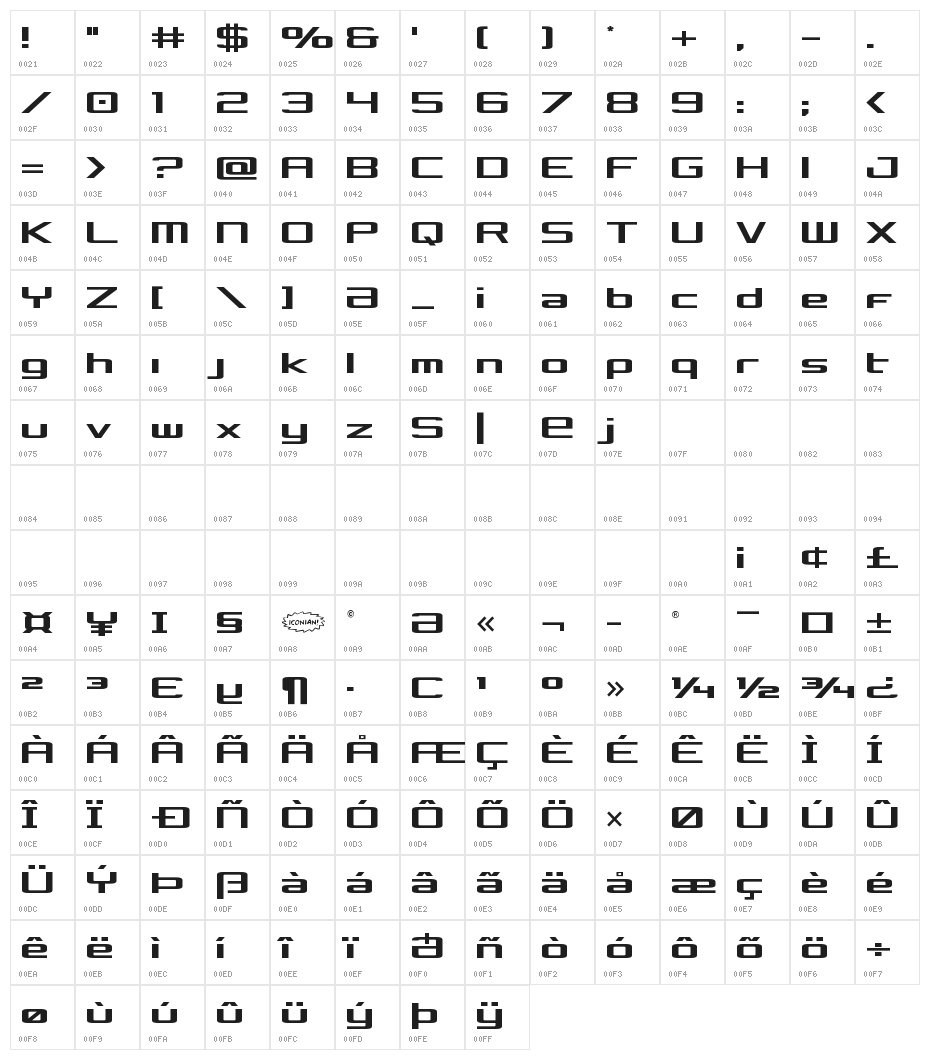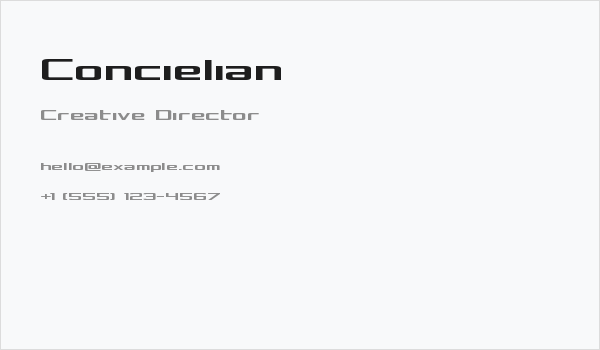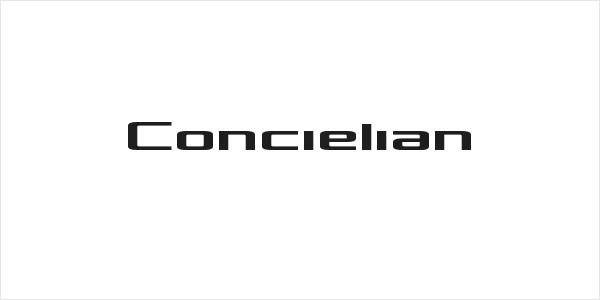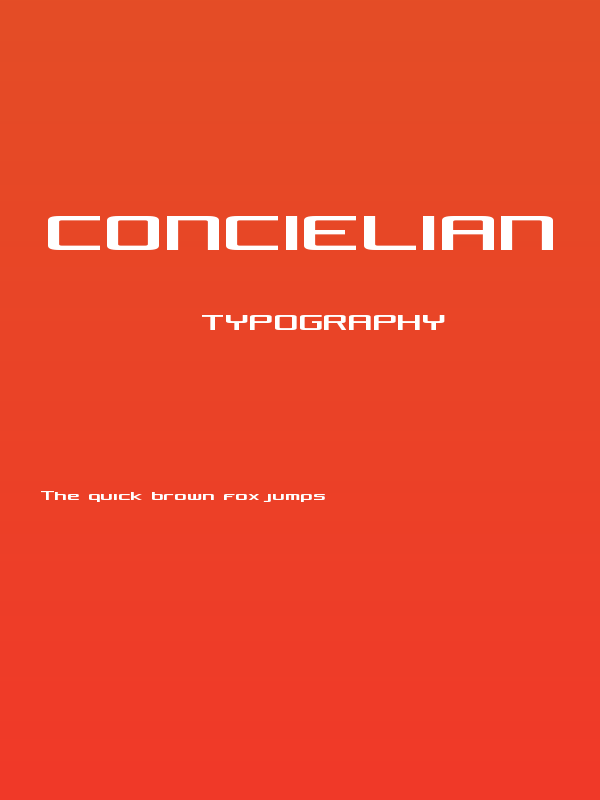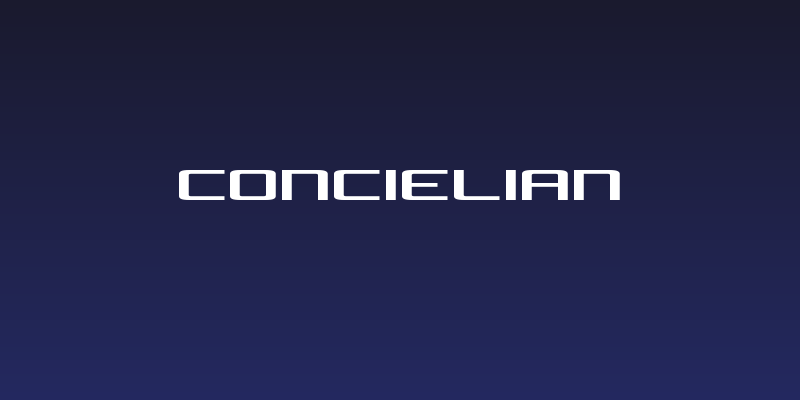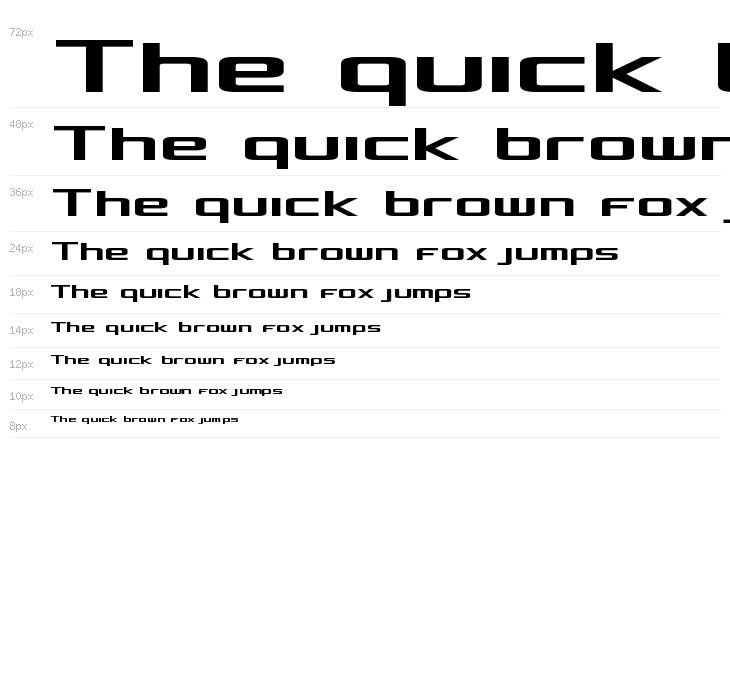
Concielian Font
Concielian Description
This font features a modern, geometric design with a futuristic flair. The characters are constructed with clean, straight lines and sharp angles, giving it a sleek and contemporary appearance. The uppercase letters are bold and assertive, while the lowercase letters maintain a consistent style with slightly softer edges. The numerals are distinct and easily readable, complementing the overall aesthetic. Special characters are designed to match the font's angular style, ensuring a cohesive look across all text elements. This font is ideal for projects that require a modern and tech-savvy appearance.
Use CaseHeadlines, Logos, Digital Interfaces
Proposed ProjectsIdeal for technology branding, sci-fi themed projects, modern advertising, and digital interfaces.